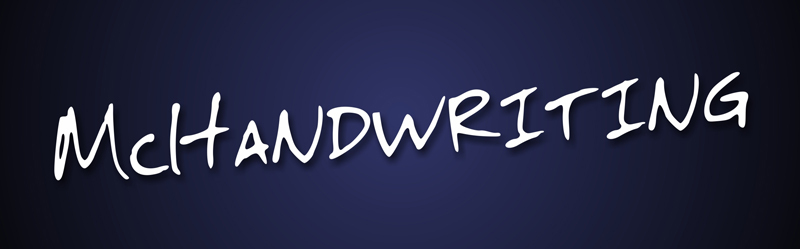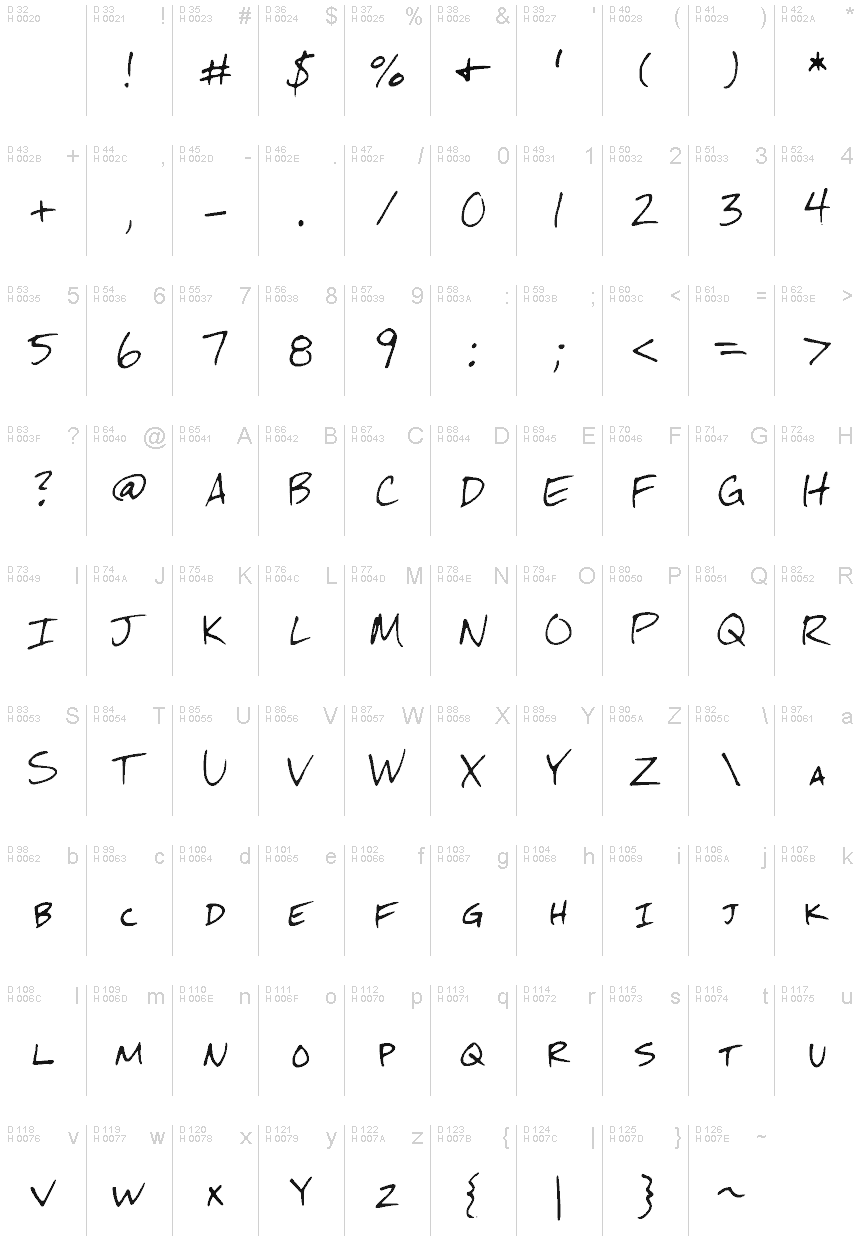
McHandwriting
McHandwriting by Chris McPeters is a captivating handwritten font that exudes an authentic, personal charm. Its organic, flowing strokes capture the lively essence of handcrafted lettering, with each character bearing the unique touch of the human hand.
The font's expressive irregularities and natural variations lend an endearing, handmade quality, making it ideal for projects seeking a genuine, artisanal feel. From editorial layouts and branding materials to stationery and signage, McHandwriting's versatility shines, infusing designs with a warm, approachable aesthetic.
Its distinctive character and timeless appeal make it a valuable asset for designers seeking to evoke a sense of individuality and craftsmanship.
The font's expressive irregularities and natural variations lend an endearing, handmade quality, making it ideal for projects seeking a genuine, artisanal feel. From editorial layouts and branding materials to stationery and signage, McHandwriting's versatility shines, infusing designs with a warm, approachable aesthetic.
Its distinctive character and timeless appeal make it a valuable asset for designers seeking to evoke a sense of individuality and craftsmanship.